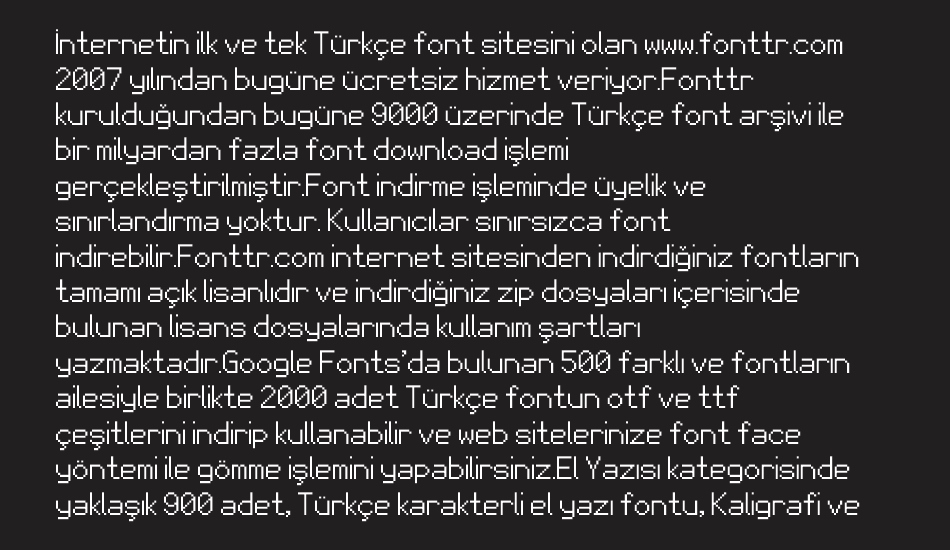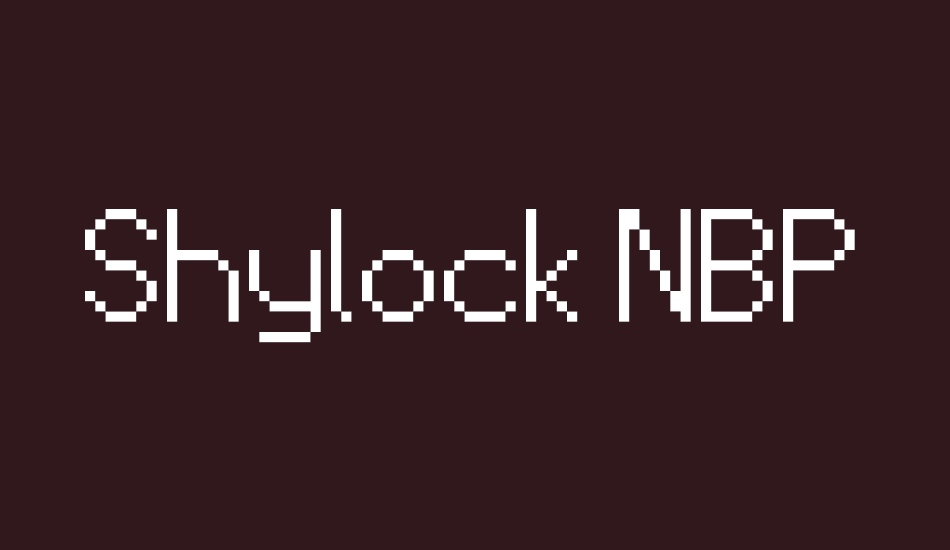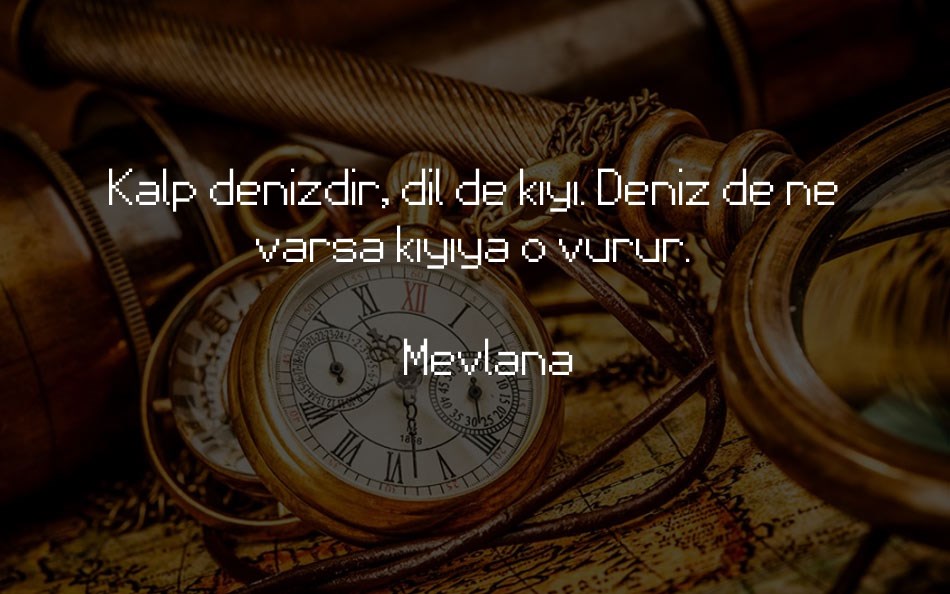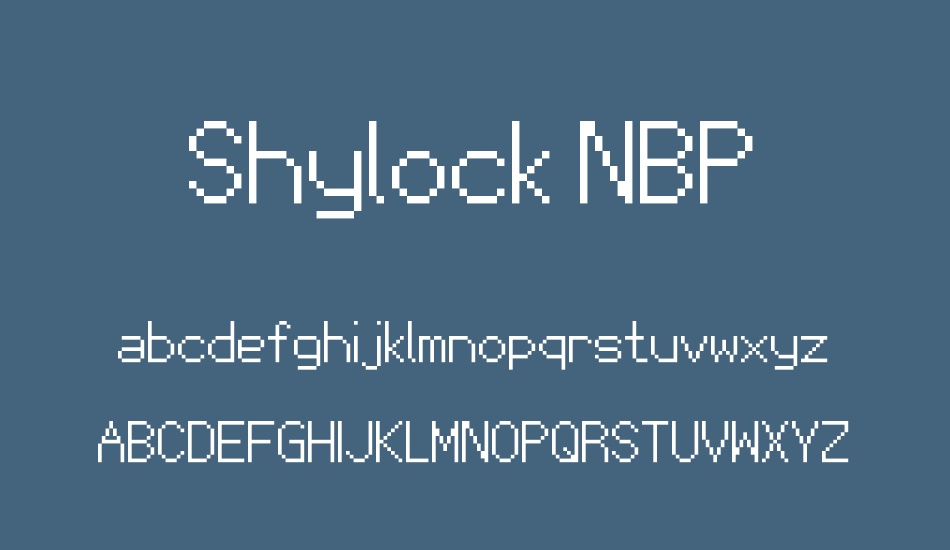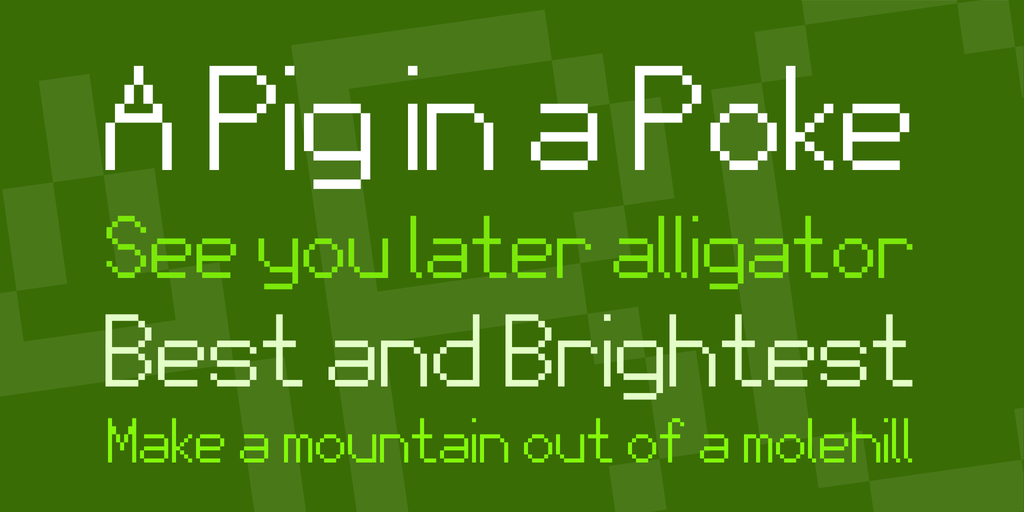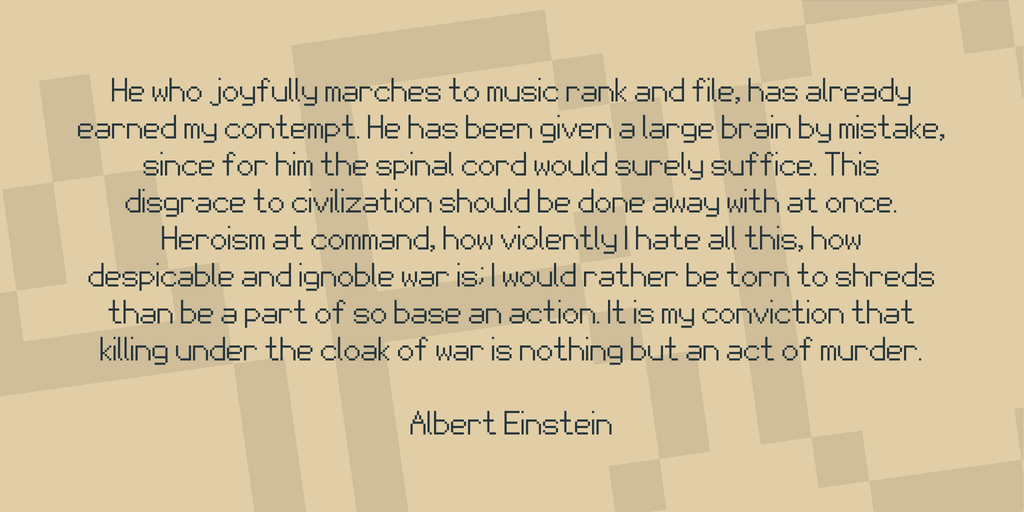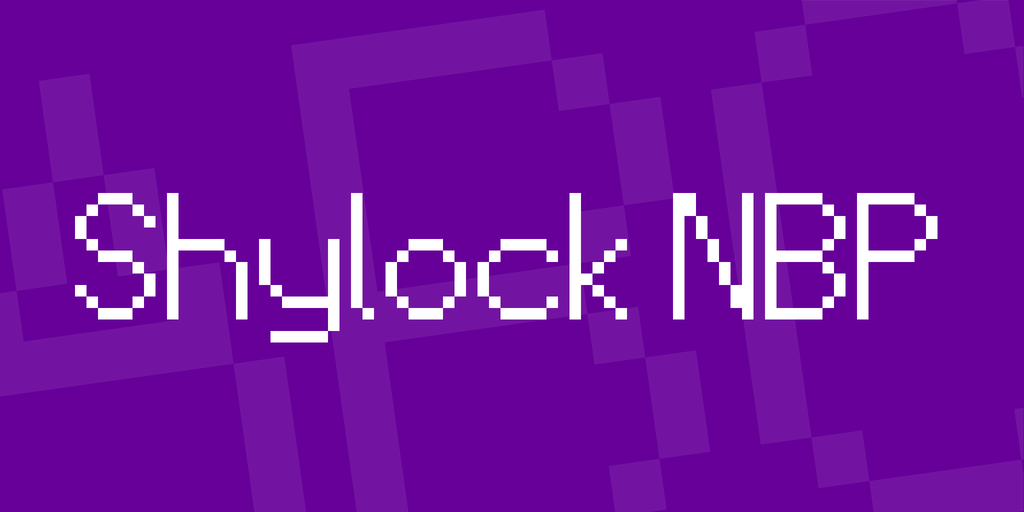
Shylock NBP Font font
SHYLOCK NBP
made by Nate Halley
using FontStruct
DESCRIPTION
A pixel font ideal for main text on small displays (use with Smart Patrol NBP for maximum effectiveness!)
CHANGES IN VERSION 1.1
-Fixed a design issue in lower "y"
-Added Cyrillic characters
-Added Extended Latin characters
-Added Greek characters